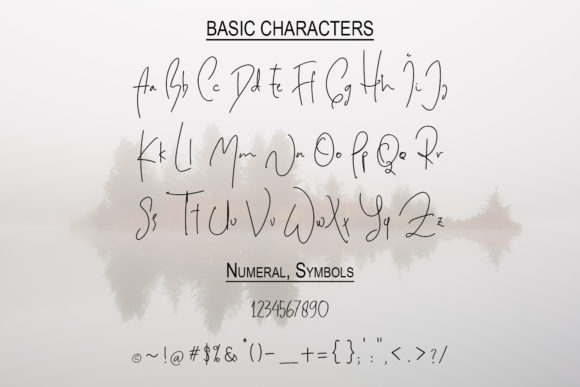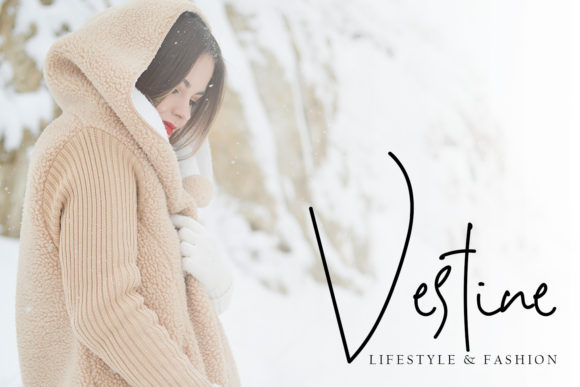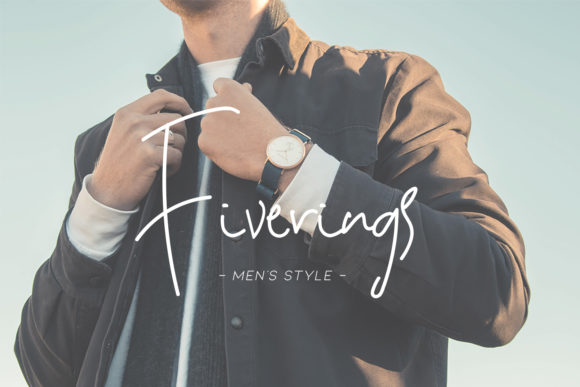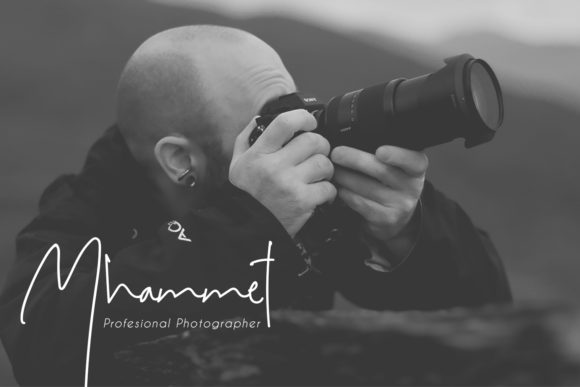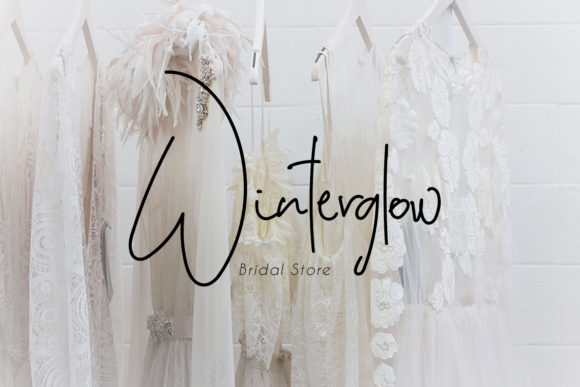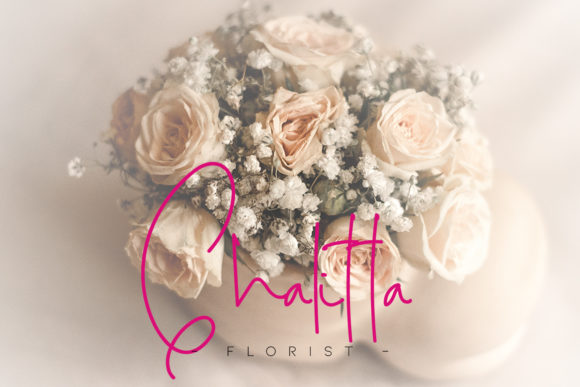
Discover the Elegance of Eleonara Font: Elevate Your Designs to New Heights
Are you tired of using the same old fonts in your designs? Look no further than Eleonara Font, a unique and delicate handwritten font that is sure to take your creative projects to the next level. With its incredibly versatile nature, Eleonara Font can be used in a wide range of designs, from elegant wedding invitations to modern branding and packaging.
The Beauty of Eleonara Font
Eleonara Font is a true gem in the world of typography. Its delicate and handwritten style gives it a personal and intimate feel, making it perfect for designs that require a touch of elegance and sophistication. The font’s unique character set and beautiful letterforms make it a standout in any design, adding a level of refinement and luxury that is hard to achieve with more traditional fonts.
One of the best things about Eleonara Font is its incredible versatility. Whether you’re designing a wedding invitation, a fashion brand’s logo, or a social media graphic, this font can adapt to any style or theme. Its delicate nature makes it perfect for feminine and elegant designs, while its bold and confident strokes ensure that it can hold its own in more modern and edgy projects.
Elevate Your Designs with Eleonara Font
So, how can you use Eleonara Font to elevate your designs? Here are a few ideas to get you started:
- Wedding Invitations: Use Eleonara Font to create beautiful and elegant wedding invitations that set the tone for a sophisticated and romantic wedding.
- Branding and Packaging: Add a touch of luxury to your brand’s packaging and marketing materials with Eleonara Font, perfect for high-end fashion, beauty, and lifestyle brands.
- Social Media Graphics: Use Eleonara Font to create eye-catching social media graphics that stand out from the crowd and showcase your brand’s personality.
- Stationery and Paper Crafts: Add a personal touch to your stationery and paper crafts with Eleonara Font, perfect for DIY projects, gift tags, and handmade cards.
Why Designers and Crafters Love Eleonara Font
Designers and crafters alike love Eleonara Font for its unique and versatile nature. Here are just a few reasons why:
- Easy to Read: Despite its delicate nature, Eleonara Font is incredibly easy to read, making it perfect for body text and longer blocks of text.
- Highly Legible: The font’s clear and confident letterforms ensure that it is highly legible, even at smaller sizes.
- Customizable: Eleonara Font comes with a range of customization options, allowing you to tailor it to your specific design needs.
Get Creative with Eleonara Font
Ready to add Eleonara Font to your design toolkit? With its incredible versatility and beautiful letterforms, this font is sure to become a favorite in your collection. Whether you’re a designer, crafter, or DIY enthusiast, Eleonara Font is the perfect choice for anyone looking to elevate their designs and add a touch of elegance and sophistication.
In conclusion, Eleonara Font is a unique and delicate handwritten font that is sure to elevate your designs to new heights. With its incredibly versatile nature, beautiful letterforms, and ease of use, this font is perfect for designers, crafters, and DIY enthusiasts alike. Whether you’re looking to create elegant wedding invitations, modern branding and packaging, or eye-catching social media graphics, Eleonara Font is the perfect choice.
Add Eleonara Font to your favorite creative ideas and notice how it makes them come alive! With its incredible versatility and beautiful design, this font is sure to become a staple in your design toolkit.